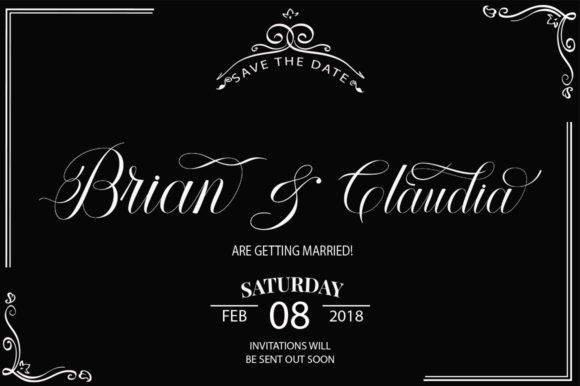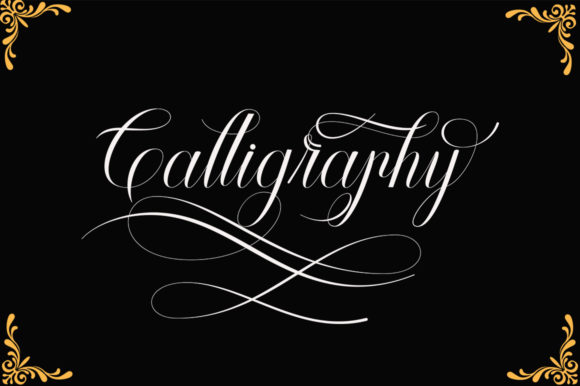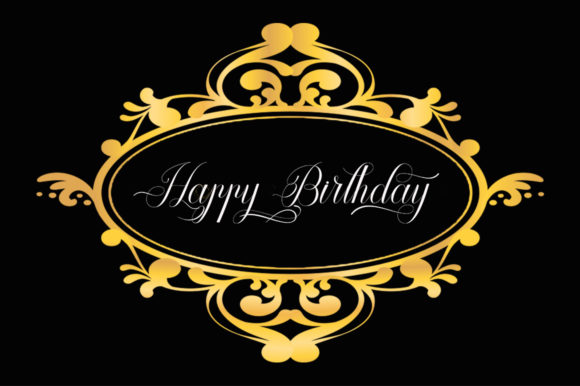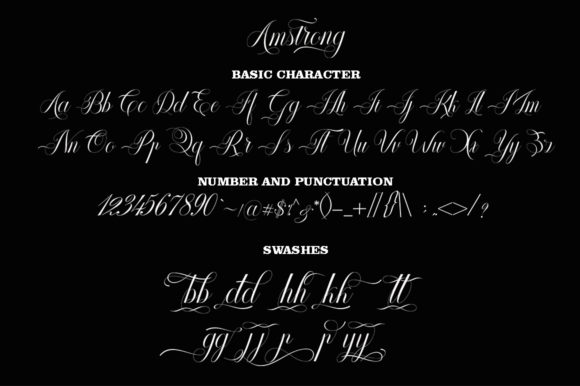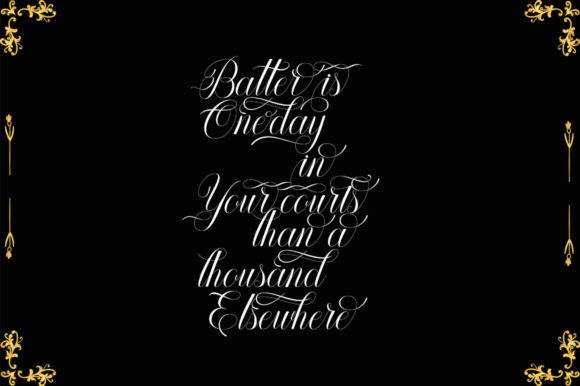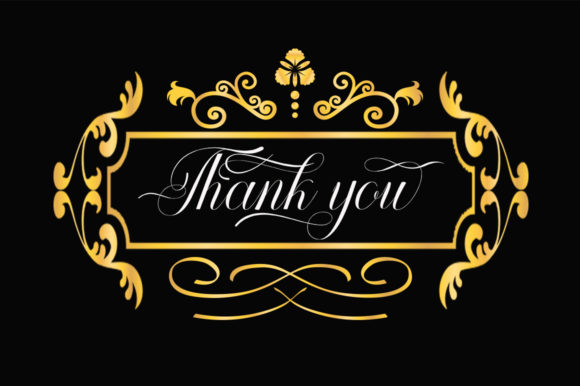
Introducing Amstrong Font: Elevate Your Designs with Elegant Handwritten Style
Are you a designer, crafty DIY enthusiast, or social media influencer looking for a font that can add a touch of sophistication and elegance to your creative projects? Look no further than Amstrong Font, a truly outstanding handwritten font that simplifies elegance into one stunning script. In this article, we’ll dive into the world of Amstrong Font, exploring its features, benefits, and uses, as well as provide tips on how to make the most of this beautiful font.
What is Amstrong Font?
Amstrong Font is a carefully crafted handwritten font designed to bring a sense of refinement and luxury to your designs. With its fluid strokes, beautiful letterforms, and classic feel, this font is perfect for anyone looking to add a touch of sophistication to their creative projects. Whether you’re working on a DIY craft, creating engaging Instagram content, or designing a brand identity, Amstrong Font is the perfect choice.
Key Features of Amstrong Font
- Elegant Handwritten Style: Amstrong Font boasts a beautiful, handwritten script that exudes elegance and sophistication.
- Versatile: This font is perfect for a wide range of creative projects, from Instagram posts and DIY crafts to branding and advertising materials.
- Easy to Read: Despite its elegant feel, Amstrong Font is highly legible, making it perfect for use in both digital and print materials.
- Unique Character Set: Amstrong Font comes with a unique character set, including uppercase and lowercase letters, numbers, and special characters.
Benefits of Using Amstrong Font
So, why choose Amstrong Font for your creative projects? Here are just a few benefits of using this stunning font:
- Instant Elegance: Add a touch of sophistication to your designs with Amstrong Font’s elegant handwritten style.
- Time-Saving: With Amstrong Font, you can create beautiful, professional-looking designs in no time, saving you hours of design work.
- Consistency: Use Amstrong Font across all your designs to create a consistent brand identity and elevate your visual style.
- Endless Creative Possibilities: From Instagram posts and stories to DIY crafts and branding materials, Amstrong Font can be used in a wide range of creative projects.
Using Amstrong Font for Instagram and Social Media
As a social media influencer or designer, you know how important it is to create engaging content that stands out from the crowd. Amstrong Font can help you do just that. Here are a few tips for using Amstrong Font on Instagram and other social media platforms:
- Post Titles and Captions: Use Amstrong Font to add a touch of elegance to your post titles and captions.
- Stories and Graphics: Create beautiful, eye-catching stories and graphics with Amstrong Font.
- Branding and Identity: Use Amstrong Font consistently across all your social media platforms to create a strong brand identity.
Using Amstrong Font for DIY Projects
If you’re a crafty DIY enthusiast, you’ll love using Amstrong Font for your projects. Here are a few ideas to get you started:
- Handmade Cards and Invitations: Add a touch of elegance to your handmade cards and invitations with Amstrong Font.
- DIY Crafts and Signs: Use Amstrong Font to create beautiful, professional-looking DIY crafts and signs.
- Journaling and Scrapbooking: Add a touch of sophistication to your journaling and scrapbooking projects with Amstrong Font.
| Author | studiorhd |
In conclusion, Amstrong Font is a truly outstanding handwritten font that can elevate your designs and add a touch of elegance to your creative projects. With its versatile style, easy readability, and unique character set, this font is perfect for designers, crafty DIY enthusiasts, and social media influencers alike. Whether you’re looking for fonts for Instagram, calligraphy scripts for DIY projects, or a font to enhance your brand identity, Amstrong Font is the perfect choice. So why wait? Download Amstrong Font today and turn your creative ideas into true pieces of art!